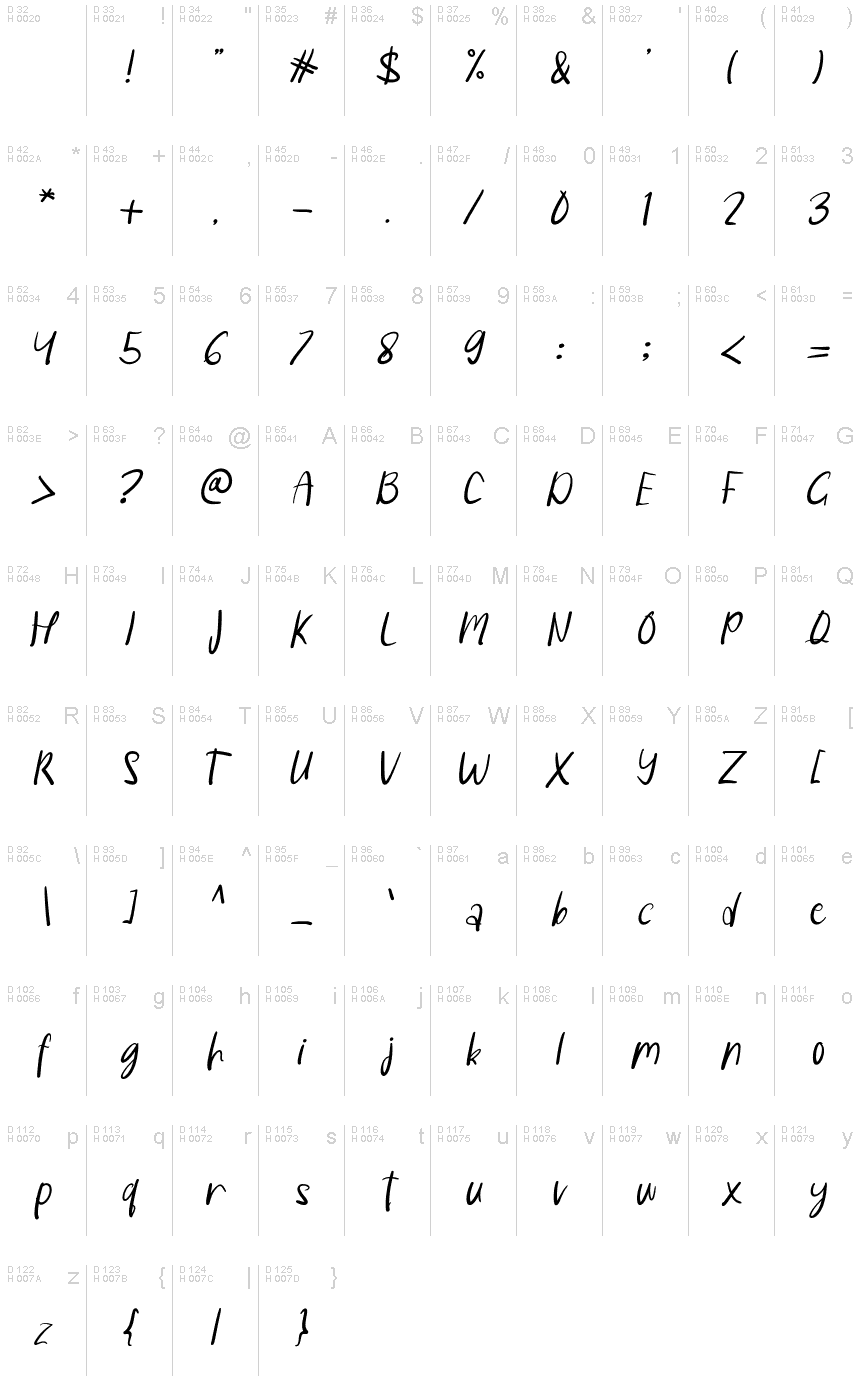
Cinta mati Italic
Cinta Mati Italic is a charming, semi-light font that embodies the playful essence of hand-drawn lettering. Designed by Bongkeng Art Studio, this cute handwritten typeface is perfect for projects that require a touch of whimsy and personality. From wedding invitations and greeting cards to social media graphics and branding materials, Cinta Mati Italic adds a delightful touch to any design. Its gentle curves and fluid strokes make it an ideal choice for creating headlines, captions, or body text that requires a bit of feminine flair. Bring your designs to life with Cinta Mati Italic!